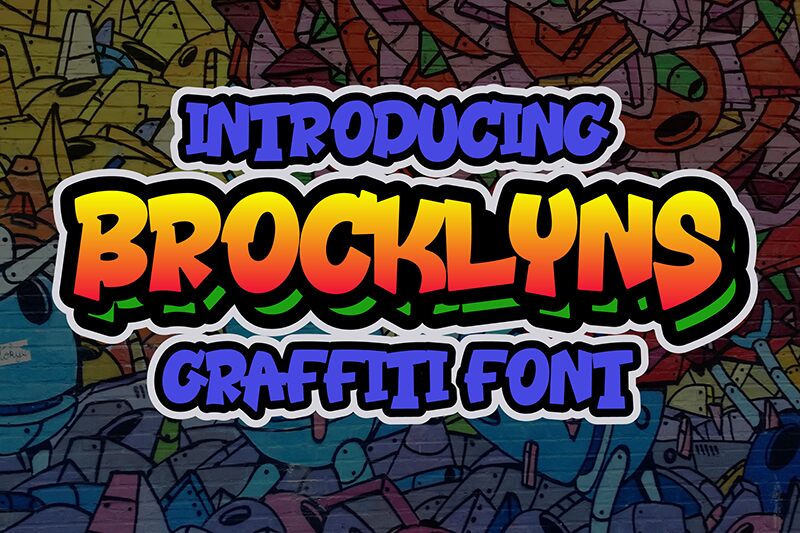
Brocklyns is a vibrant and playful display font designed by Ahwe Project. With its bold strokes and comic-style design, it's perfect for adding a touch of fun and personality to any project. Whether you're creating posters, book covers, or social media graphics, Brocklyns' extra-bold weight will make sure your message pops. Use it for children's books, gaming logos, or even food packaging - the possibilities are endless. Get creative with this lively font and let your imagination run wild!
Brocklyns